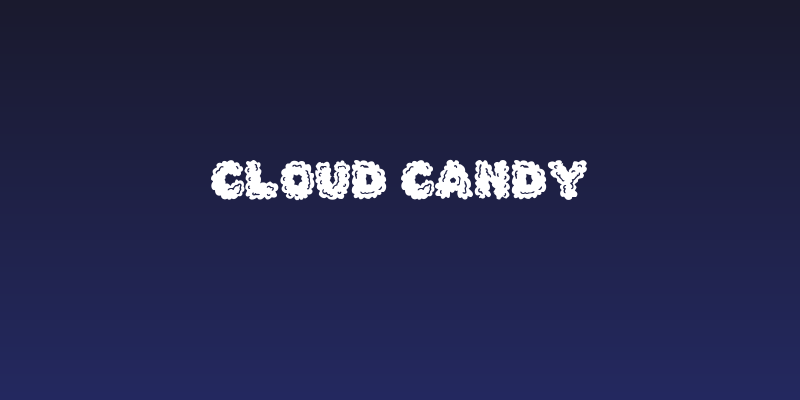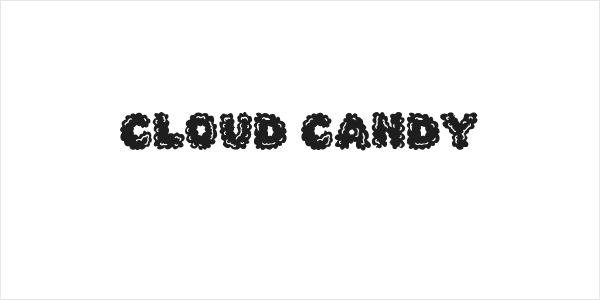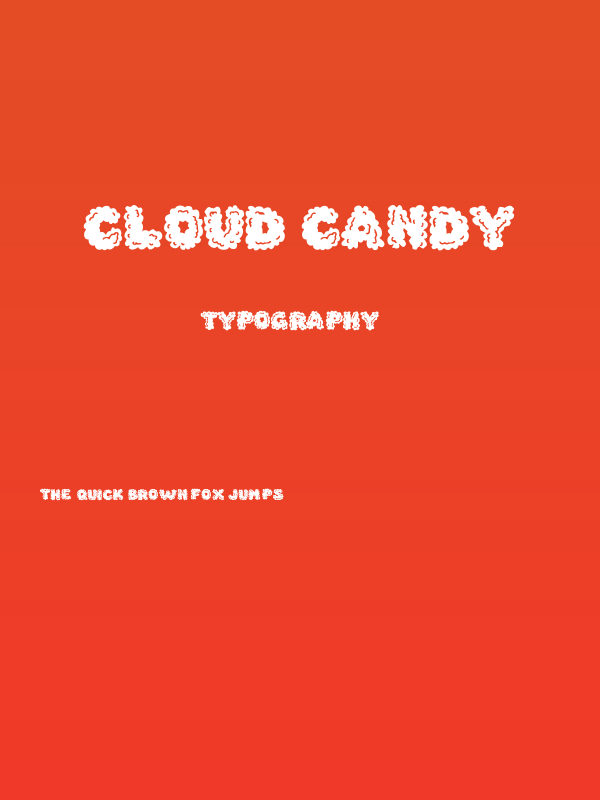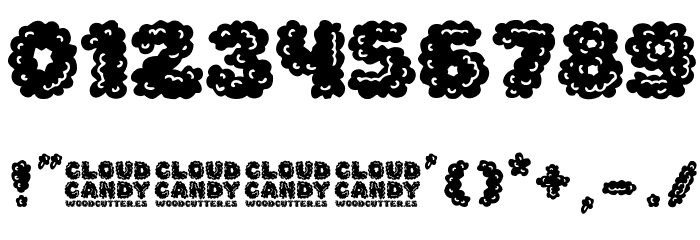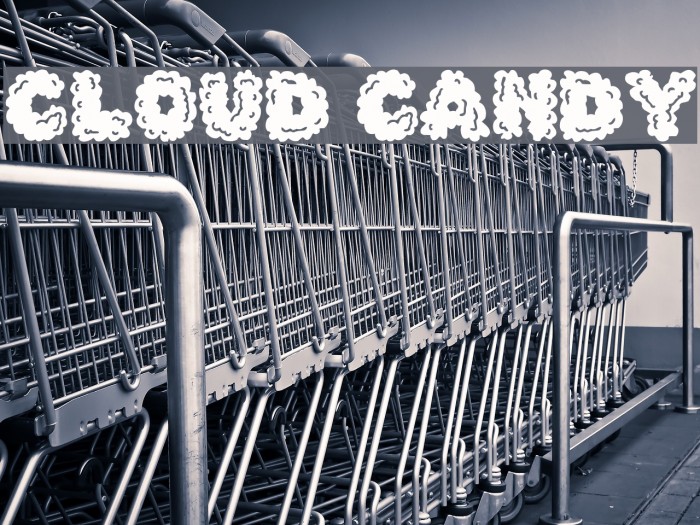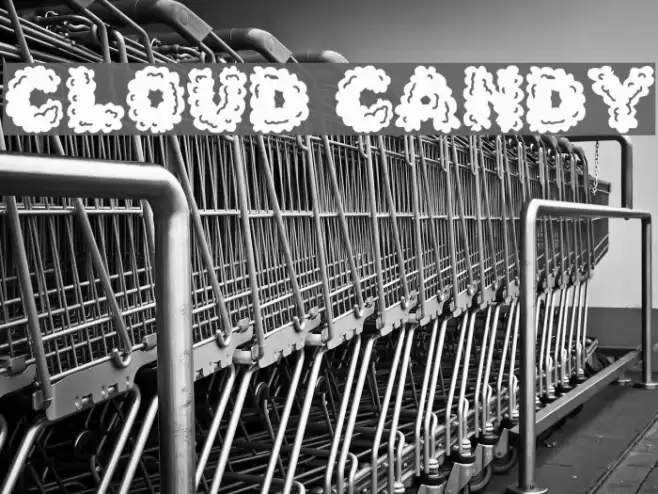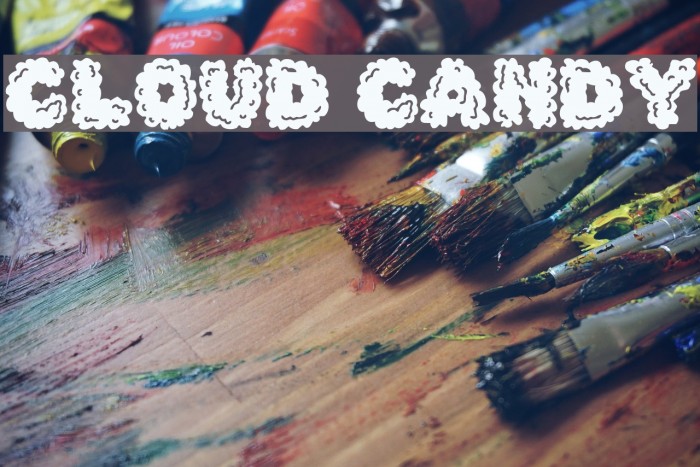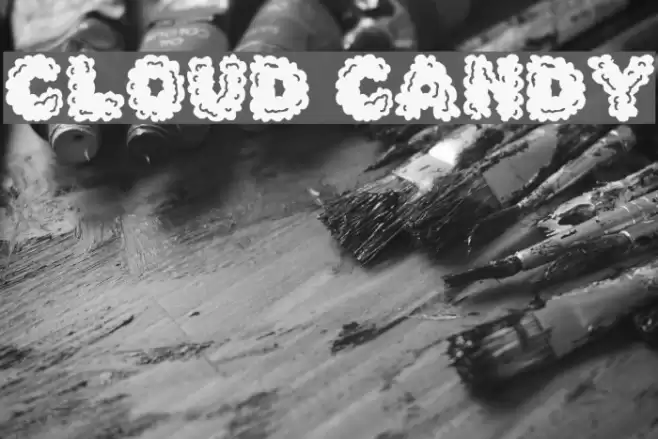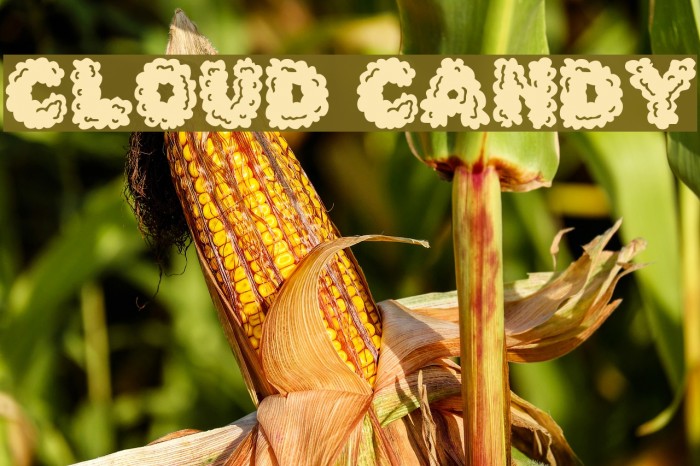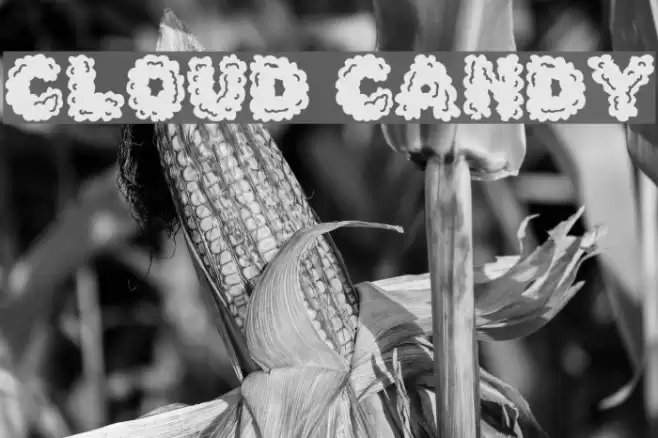
Cloud Candy Font
Cloud Candy Description
This playful and whimsical font features bold, cloud-like shapes that give each character a fluffy, rounded appearance. The design is highly decorative, with each letter and number appearing as if it is made from clusters of bubbles or cotton candy. The font maintains a consistent weight throughout, emphasizing its bold and eye-catching nature. Its unique style makes it ideal for creative projects that require a fun and engaging visual element. The characters are evenly spaced, ensuring readability despite their intricate design. This font is perfect for projects that aim to convey a sense of joy and playfulness.
| Overall Style | Playful, Whimsical, Decorative |
| Proposed Projects | Ideal for children's book covers, playful branding, party invitations, and creative posters. |